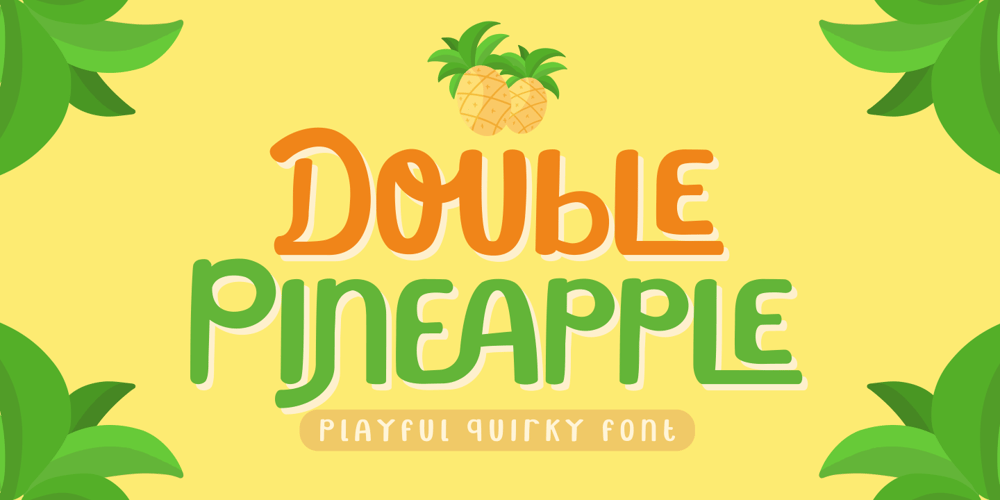
Double Pineapple
Double Pineapple font
Double Pineapple Font Family was designed by Putra Novembria Candra Kusuma and published by Putracetol. Double Pineapple contains 1 styles and family package options. DoublePineapple – Playful Quirky Font. This font is a playful quirky font with a lot of character ligatures, as many as 85 ligatures. With a soft and warm appearance, it is suitable for all ages from children, teenagers and the elderly. This font is perfect for logos, greeting cards, quotes, svg, clothes, posters, logos and more.This font can be installed on MAC OS and Windows OS, it can also be installed in the procreate and cricut applications.Come with lot of ligatures character, its help you to make great lettering, quote, logos and. This font is also support multi language.